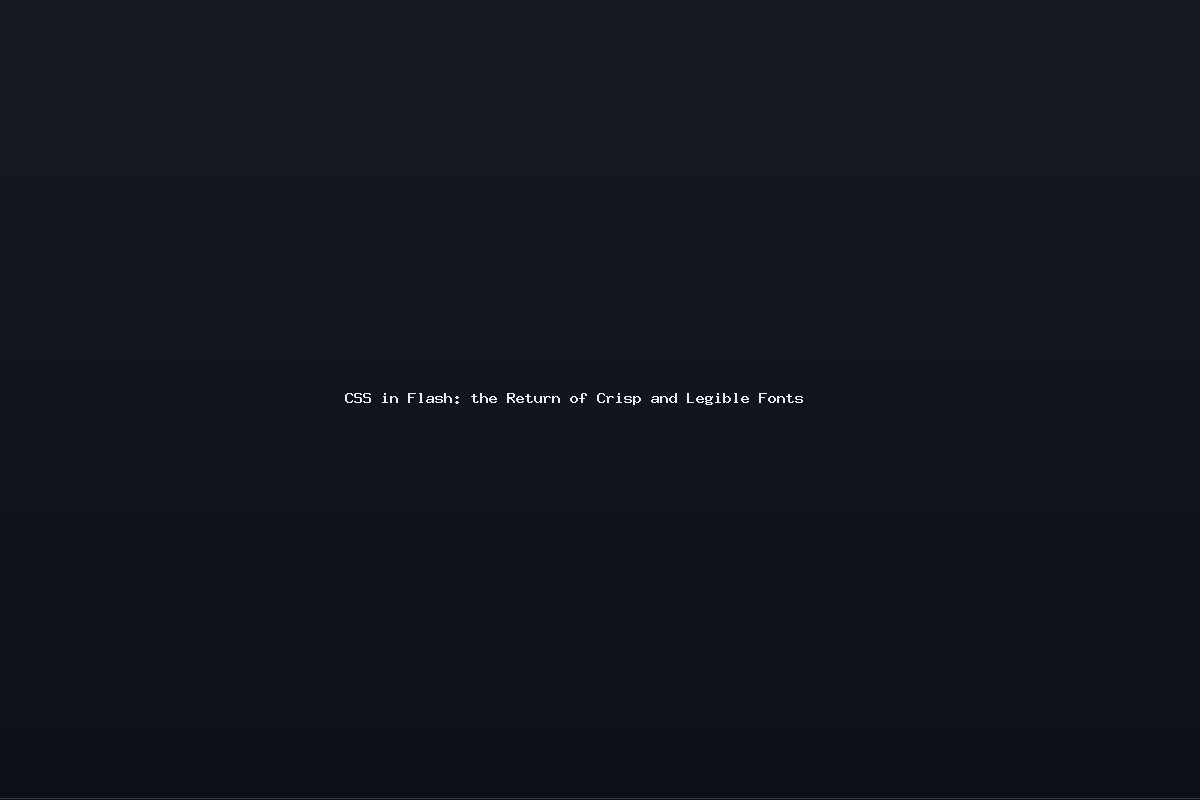
A typical challenge faced by Flash developers like me is getting fonts to look like you want them to.
For any project choosing the right font face and size is a process that requires both you and ultimately the client to see eye to eye.
In Flash MX and earlier versions fonts were by default anti-aliased, meaning that the edges of the text are smoothed. This is good when dealing with large type but it causes small text to appear blurry. Earlier versions of Flash also had other issues. For instance if one were to realign textfields around other objects fonts might come out of focus (because of positioning), and getting it right could take several tries.
More recently with the advent of Flash MX 2004 came the "alias text" option but, more importantly the TextField.StyleSheet() class. What is the TexFiled.StyleSheet() class? I'll get to that but first let me tell you about this new "alias text" feature. The latter hides the anti-aliasing to make small text sharper and more legible yada, yada, yada. However, most often than not, fonts appear overly pixilated and cracked. In my opinion "alias text " is nothing more than a little ransom note generator making every character appear as if it had been cut out of a magazine. Adding insult to injury if you are publishing for the Flash 6 player or earlier versions on Flash MX 2004 the "alias text" feature does not work on dynamic and or input textfields.
Moving forward with stylesheets. If you don't already know something about CSS don't fret the small stuff. Get to your favorite search engine and key in CSS (short for Cascading Style Sheets), and in seconds flat you will find hundreds of articles on CSS benefits, syntax, usage and whatnots. Very quickly, CSS is the language of style on the web and as opposed to other languages CSS is much easier to read and write. One of the reasons for this is you can pretty much read everything just as you would plain English, another is the ability to write everything in lowercase, something you could never getaway with in JavaScript.
CSS in ActionScript is relatively simple. The first thing we want to do is open the Action panel and create an empty style sheet object. Basically the idea is to load our style sheet information in there (font size, weigh, color etc.), and then assign that information to some text. Not only will you have more crisp and legible fonts but more importantly, this mean you can change details about your font in an entire Flash site by simply editing one file. Pretty powerful stuff huh? Very handy when clients decided they don't like red anymore or call to tell you that the font is too small. In the past such changes could be very time consuming, requiring developers to go through the whole movie editing textfield after texfield one at a time; providing that the client was happy with the changes you'd might get lucky and only need to run around that track once.
In sum the choice is your, on smaller projects I would actually prefer Pixel fonts over cascading style sheets, I mean why bring a gun to the snipe hunt when all you need is my gunnysack. On the other hand you can do without a lot of unnecessary frustration going with CSS when working on larger projects.
CSS in Flash: the Return of Crisp and Legible Fonts